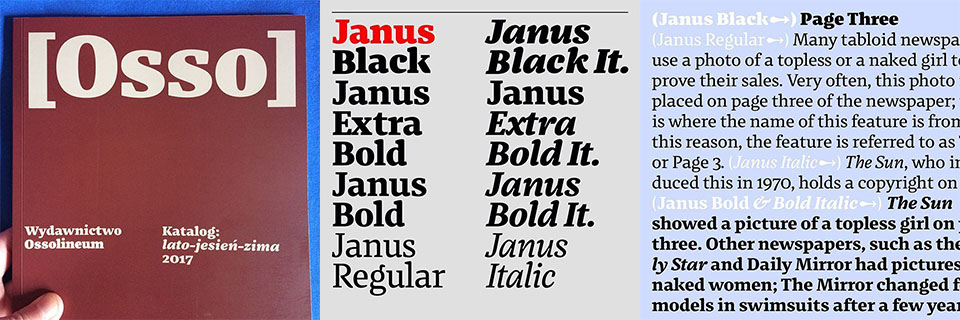
Janus Font
Janus Font is perfect for architectural firms, design studios, contemporary art galleries, minimalist branding, modern publishing, editorial layouts, cultural institutions, tech companies, urban planning documents, and sophisticated corporate communications.
Janus Font is exciting because it embodies the perfect duality of form and function, creating a typeface that masterfully balances contrasting elements while maintaining harmonious unity. This font brings intellectual sophistication and design intelligence to any project, making it ideal for organizations and brands that value thoughtful design, cultural depth, and contemporary relevance. Its unique character reflects the complexity of modern communication while providing clarity and accessibility.
Janus Font family includes light, regular, medium, bold, and black weights, each available in roman and italic styles with extended character sets, providing designers with comprehensive tools for multilingual applications and complex typographic systems.
This remarkable typeface combines classical typographic principles with contemporary design innovation, making Janus Font Free Download an outstanding choice for projects requiring both intellectual gravitas and modern appeal. The font's carefully balanced proportions and subtle contrasts create typography that encourages contemplation while maintaining strong visual presence across various media.
Whether you're designing cultural publications, architectural presentations, or sophisticated brand identity systems, Janus Font delivers exceptional versatility and refined elegance. The font performs beautifully in both extended reading applications and impactful display settings, making it suitable for comprehensive design systems.
Design professionals appreciate Janus Font for its ability to convey intelligence and cultural sophistication while remaining highly functional across diverse applications. The font's nuanced character makes it particularly suitable for institutions, design firms, and brands that value thoughtful communication and aesthetic excellence.
Each letterform demonstrates careful consideration of optical balance and reading comfort, featuring subtle details that reward close examination while supporting effortless comprehension in longer texts.